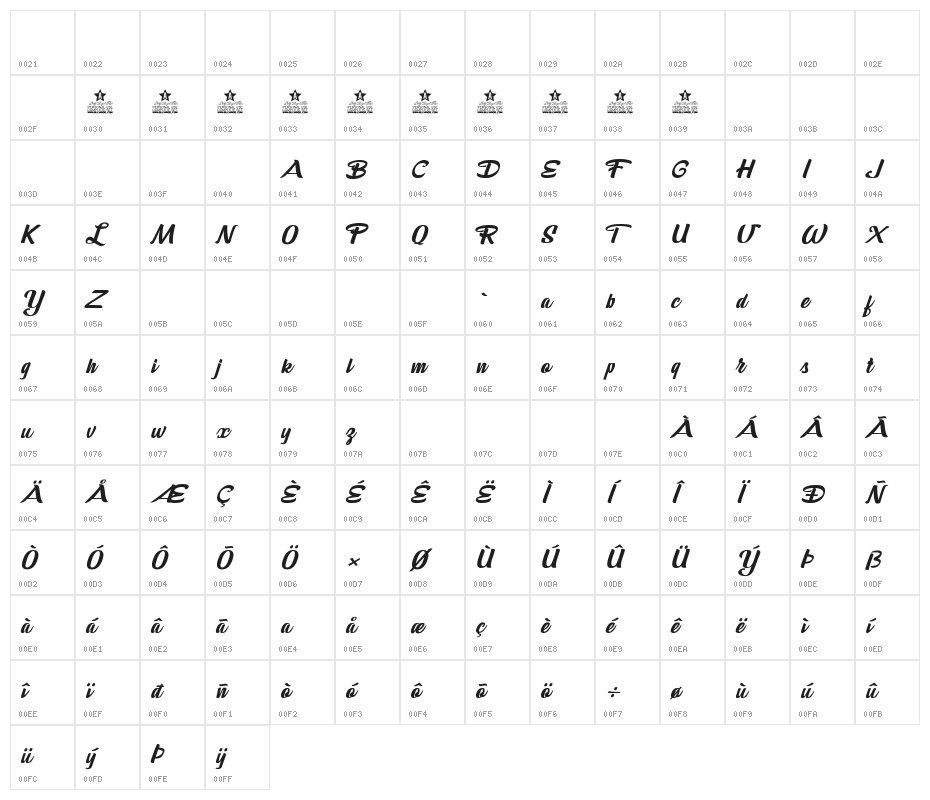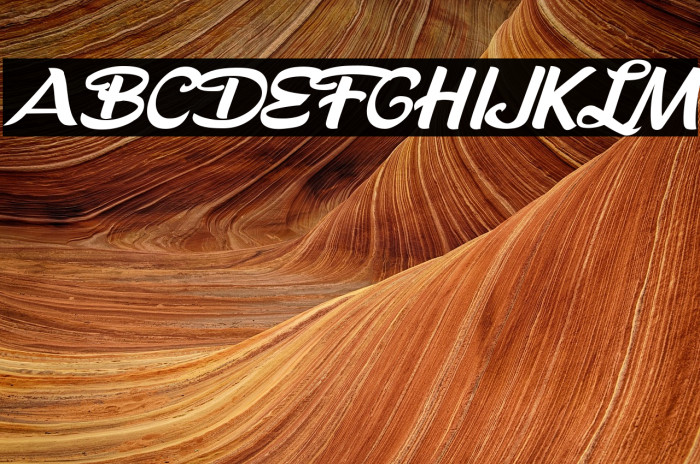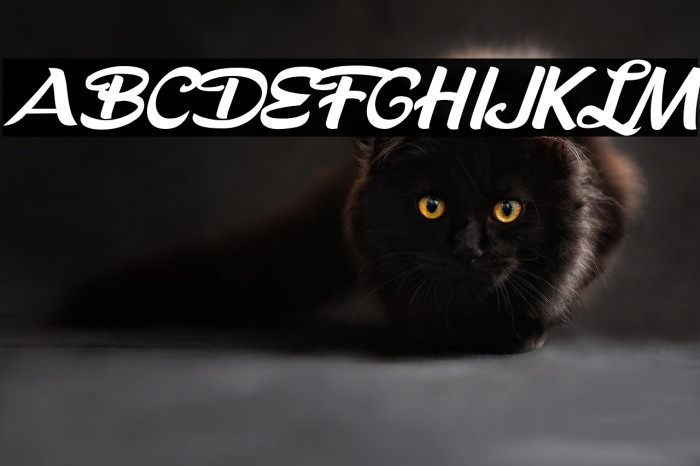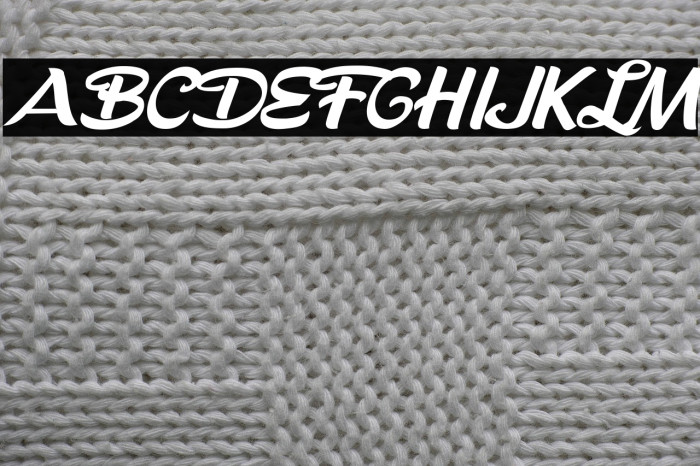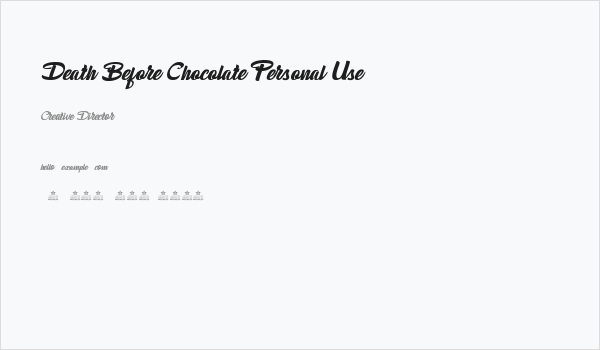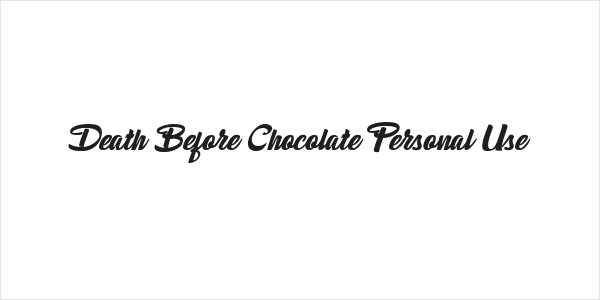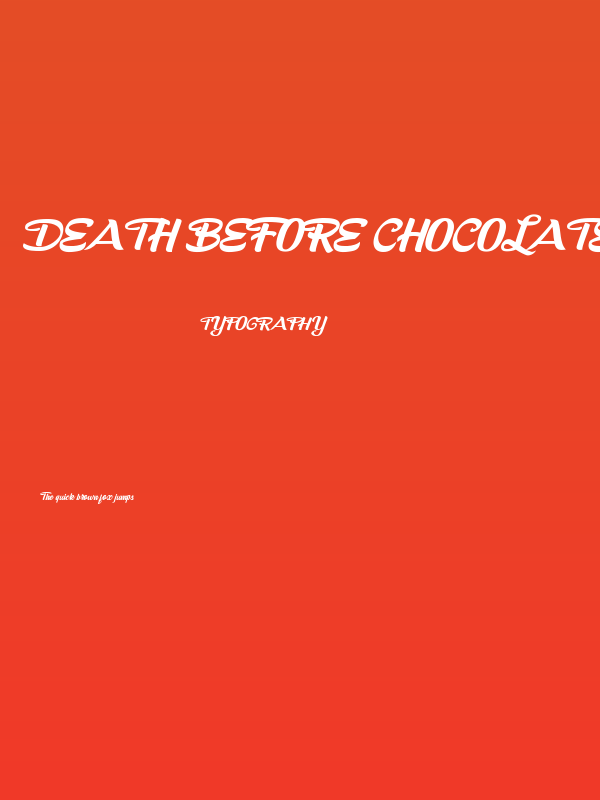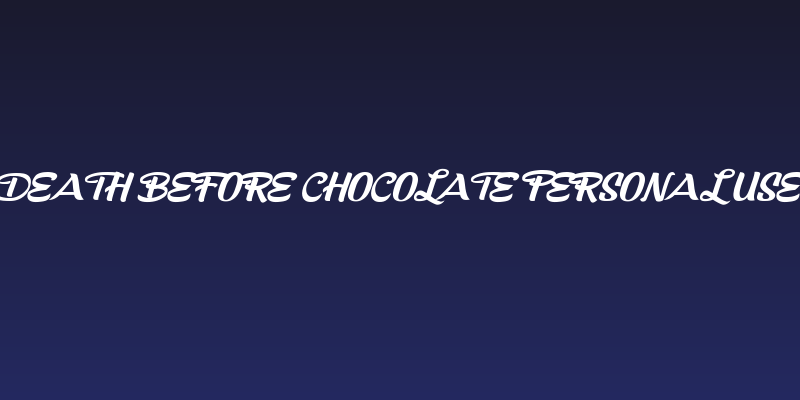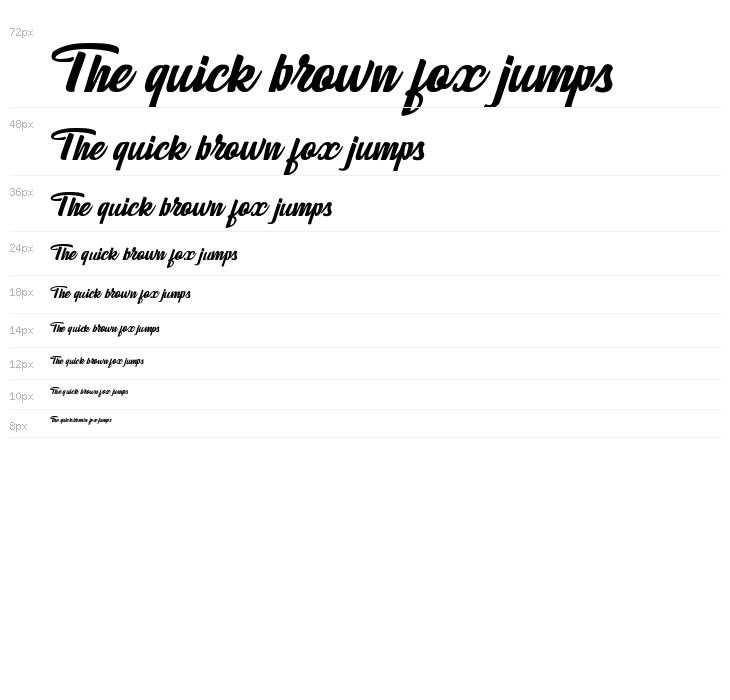
Death Before Chocolate Personal Use Font
Death Before Chocolate Personal Use Description
This font features a bold and dynamic script style with a modern flair. The uppercase letters have a strong presence with sweeping curves and a slight slant, giving them a sense of motion and elegance. The lowercase letters maintain the same energetic style, with smooth connections between characters that enhance readability. The numbers and special characters are designed to match the overall aesthetic, making them suitable for a variety of creative applications. The font's bold weight and medium contrast in stroke thickness contribute to its striking appearance, making it ideal for attention-grabbing designs.
| Proposed Projects | Ideal for branding, logos, headlines, posters, and invitations. |